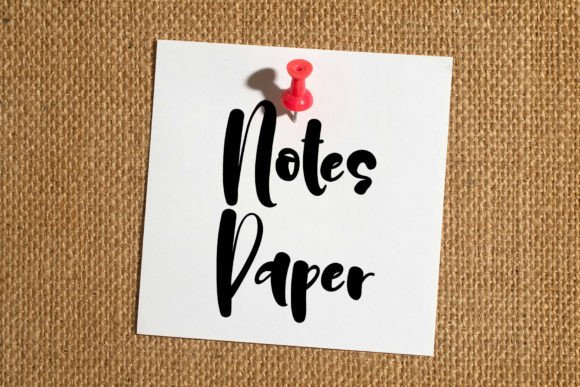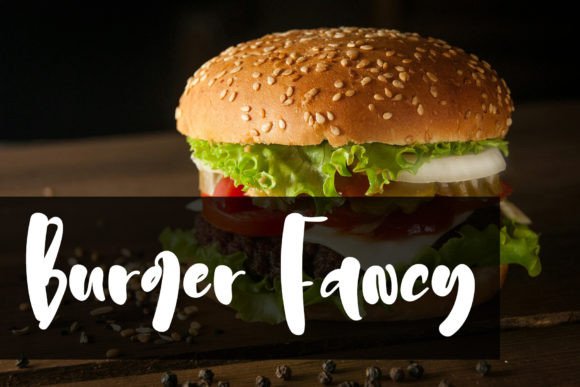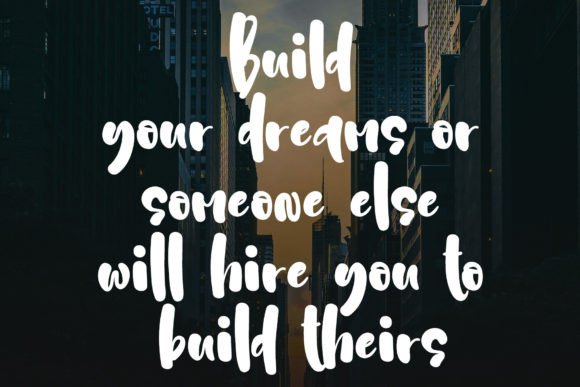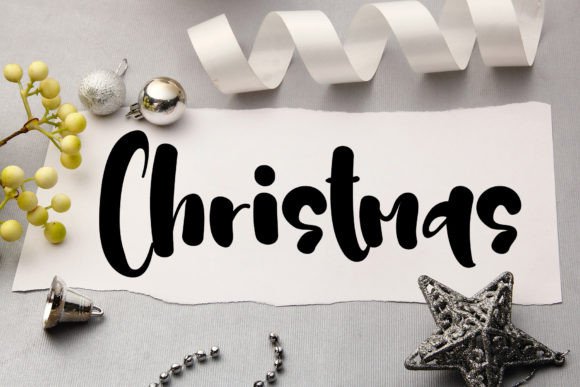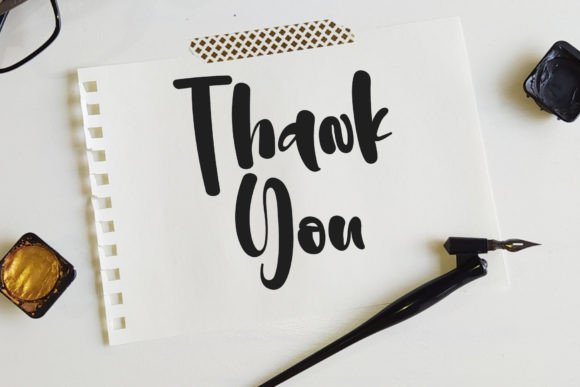
The Perfect Blend of Style and Flair
Remember the moment you finally nailed that design project? The rush of excitement, the satisfaction of bringing an idea to life? That’s what we aim to capture with the Garlic Bread Font – a stylish display font that brings a touch of contemporary sophistication to your work.
Garlic Bread Font is more than just a typeface; it’s a way to elevate your projects with impeccable form and timeless classic calligraphy. Its balanced and varied design makes it perfect for adding a pop of personality to your designs, whether you’re working on a branding project, creating a beautiful invitation, or crafting a stunning social media graphic.
As a designer, you know that the right font can make all the difference. That’s why we’re excited to share the Garlic Bread Font with you – it’s a valuable addition to any design toolkit, and we’re confident it will become a go-to choice for your next creative project.
Garlic Bread Font Key Features
- Font Family: A custom, handwritten font designed to resemble garlic bread, perfect for food-related branding and packaging.
- Unique Characteristics: Features a distressed, hand-drawn appearance with subtle texture and imperfections to give it a rustic, homemade feel.
Garlic Bread Font Review
Overall, I’m impressed with the unique concept behind the Garlic Bread Font. The designer has taken a popular food item and turned it into a font, which can be a fun and creative approach.
- ✨ The font is indeed reminiscent of garlic bread, with the right amount of texture and crustiness.
- ✨ The font is highly customizable, allowing users to adjust the crust color, bread texture, and even add toppings.
However, there are some limitations:
- ⚠️ The font may not be suitable for all types of projects, particularly those that require a more professional or formal tone.
- ⚠️ The font can be quite distracting, especially when used in large quantities or as the primary text element.
- ⚠️ The font may not be suitable for users who are looking for a more traditional or classic font style.
Overall, I think the Garlic Bread Font is a fun and creative option for designers who want to add a bit of personality to their projects. However, it may not be the best choice for all types of projects, and users should carefully consider their needs before using it.
Tips for Getting the Most Out of Garlic Bread Font
Garlic Bread Font is a versatile font that can be used for various purposes, including:
- Baking and food-related designs.
- Restaurant and cafe branding.
- Food blog and recipe designs.
Remember to use the font in moderation and balance it with other design elements to avoid overwhelming the viewer.
Garlic Bread Font is commonly used for:
- Menu
Alternatives to Garlic Bread Font for Designers
Lato is a popular sans-serif font that works well for body text and headings. It’s highly legible and versatile, making it a great choice for a wide range of designs. Unlike Garlic Bread Font, Lato has a more modern and clean feel, making it suitable for contemporary designs.
Merriweather is a classic serif font that adds a touch of elegance to designs. It’s particularly well-suited for formal or traditional designs, such as book covers or corporate materials. While Garlic Bread Font has a playful feel, Merriweather has a more sophisticated and refined look.
Does the Garlic Bread Font support ligatures and contextual alternates?
Yes, the Garlic Bread Font includes ligatures and contextual alternates, which can be accessed through the OpenType features in your design software. This allows for more advanced typography and a more polished look in your designs.